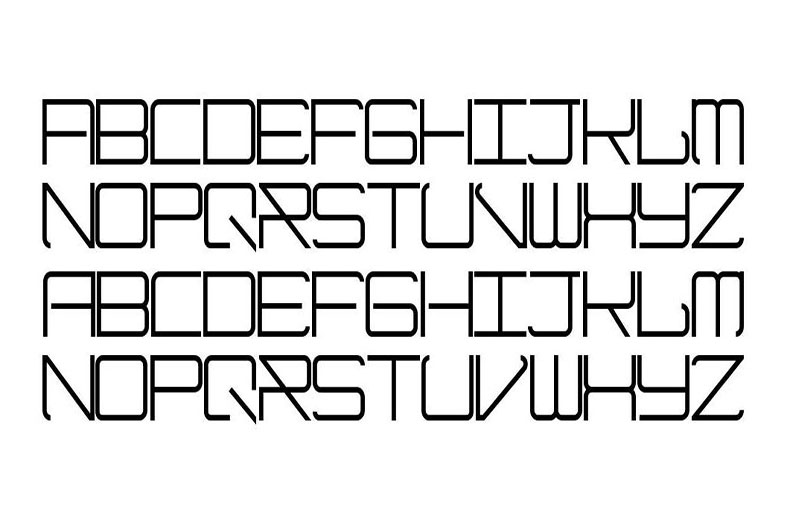
The Modernism font is a techno, typeface designed by Xerographer Fonts. It offers a fresh perspective on typography due to its simple lines and geometric shapes.
It is a wonderful display typeface for those projects where you need a font that will stand out from the pack. Great for album titles, posters, headers, branding, logos, etc.
The Modernism typeface helps to give your project flair despite its simple style. His letterforms’ subtle irregularities lend a sense of personality without sacrificing consistency.
This amazing typeface is a useful addition to your typographic toolset whether you’re a seasoned designer or just starting out.
It is a fantastic option for anyone wishing to give their creative work a dash of modern refinement.
This wonderful typeface can be used in a variety of design contexts, including posters, daily reports, animated games, websites, social media posters, flyers, headers, titles, banners, advertisements, logo designs, product packaging, book layouts, and many more.
This technologically versatile typeface is guaranteed to impress and leave a lasting impact on your audience because of its crisp edges, clean lines, and several styles.
What is the Modernism font?
A typeface style known as modernism is utilized for both text and design. It is renowned for its modern styling and simple, clean lines.
Where is Modernism font used?
The Modernism font can be seen in books, posters, websites, and even logos. It creates a modern, streamlined appearance.
Is Modernism font easy to read?
Yes, it’s designed for readability. Its simplicity helps convey information clearly.